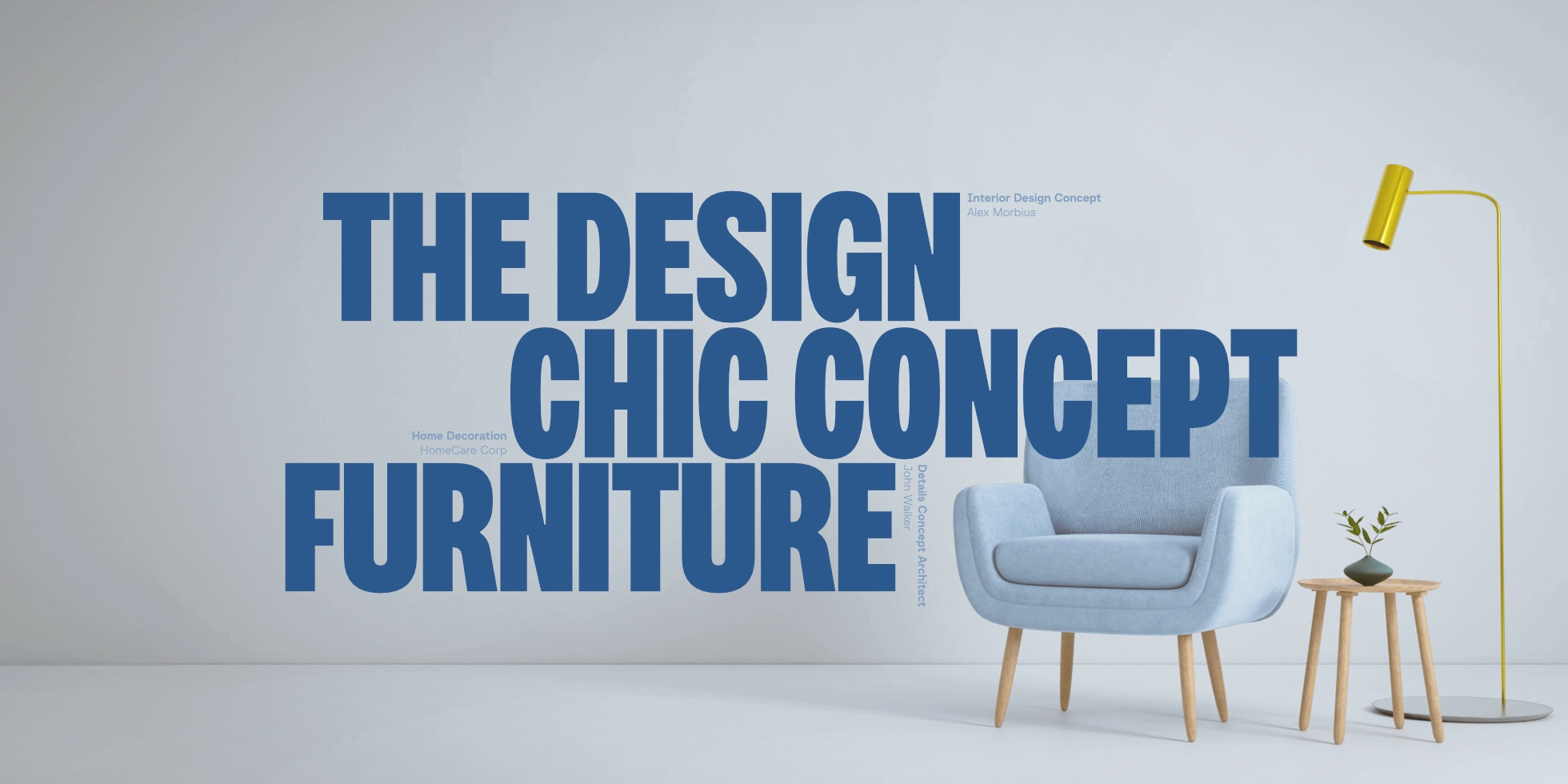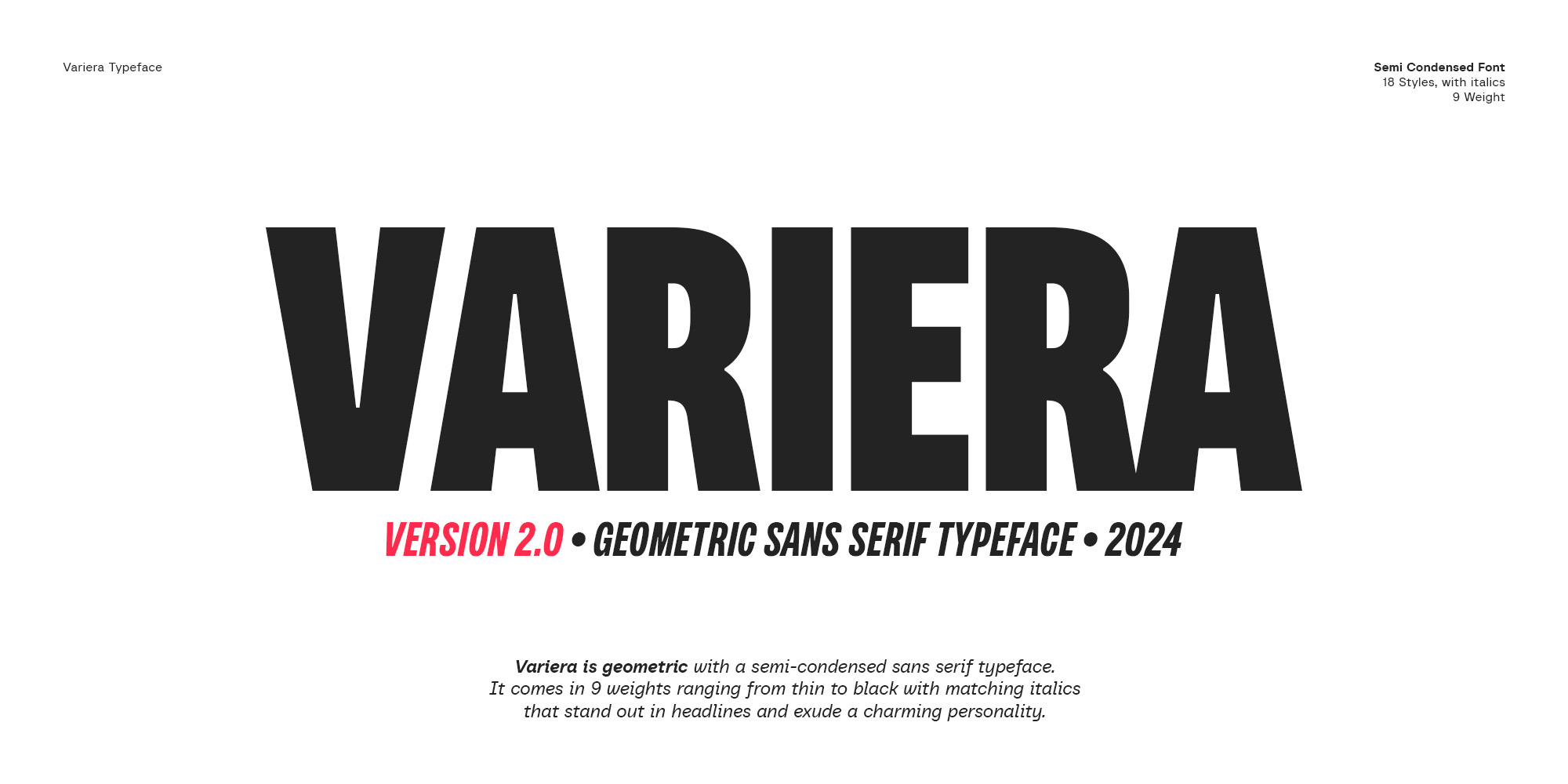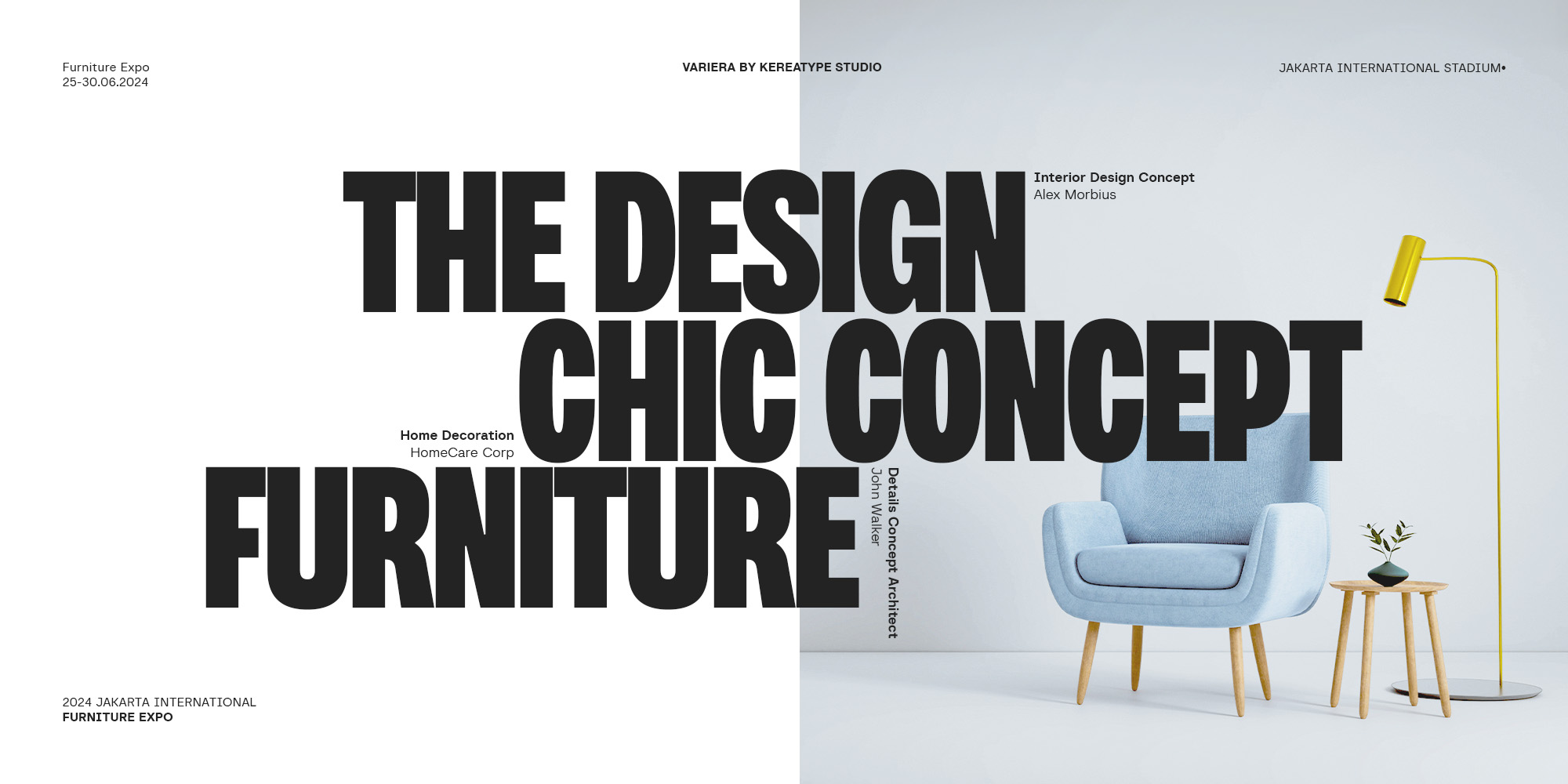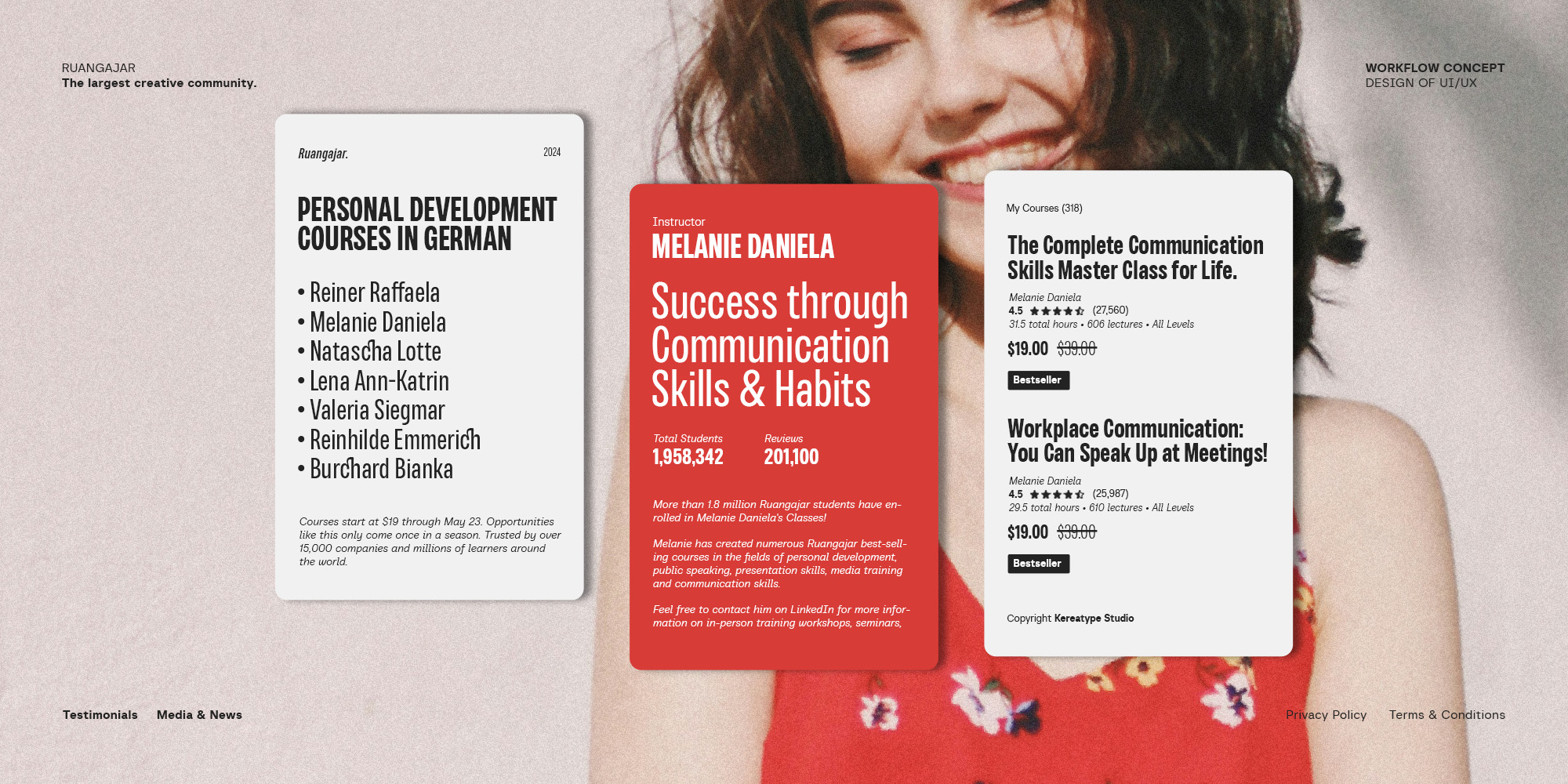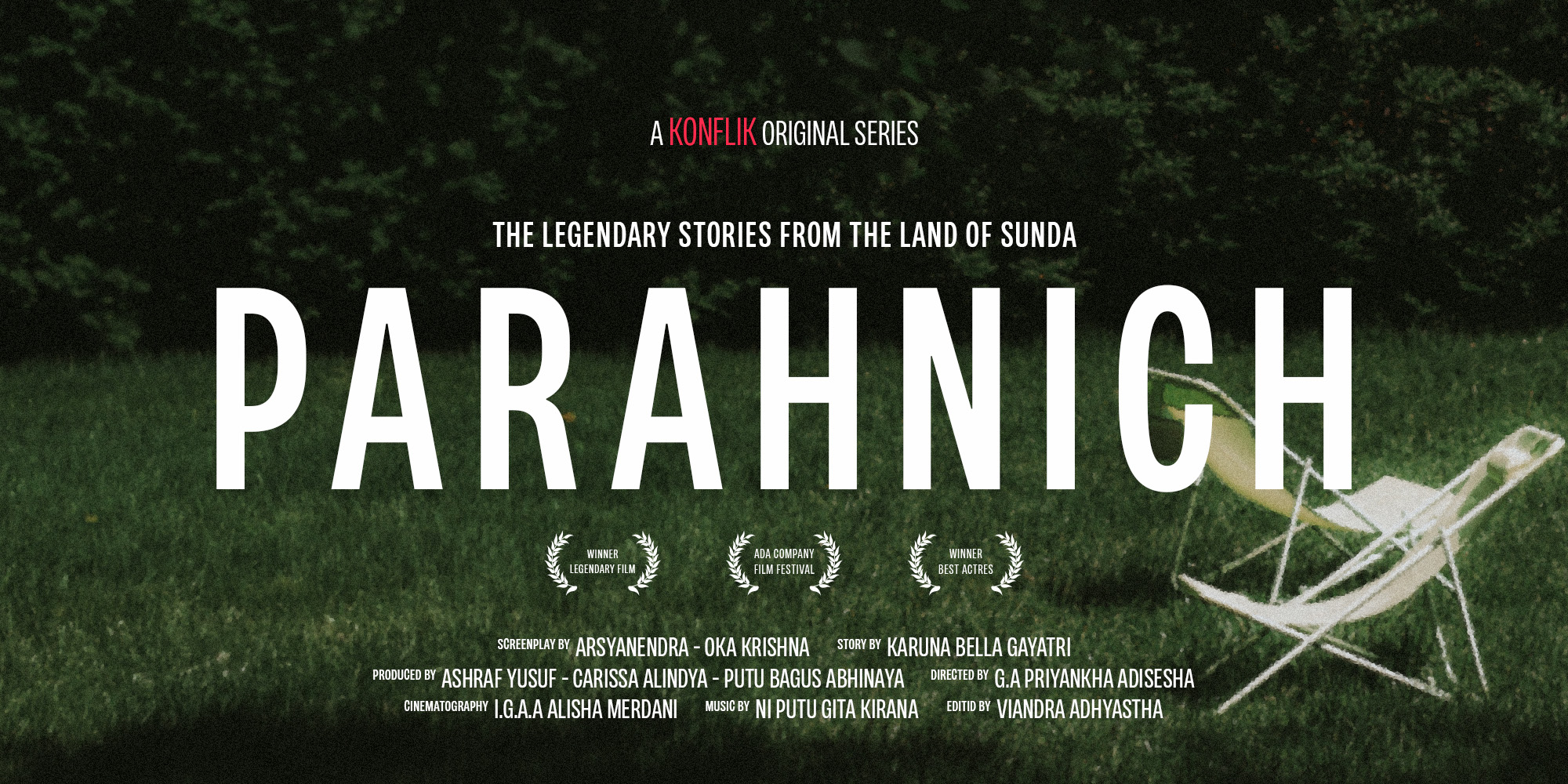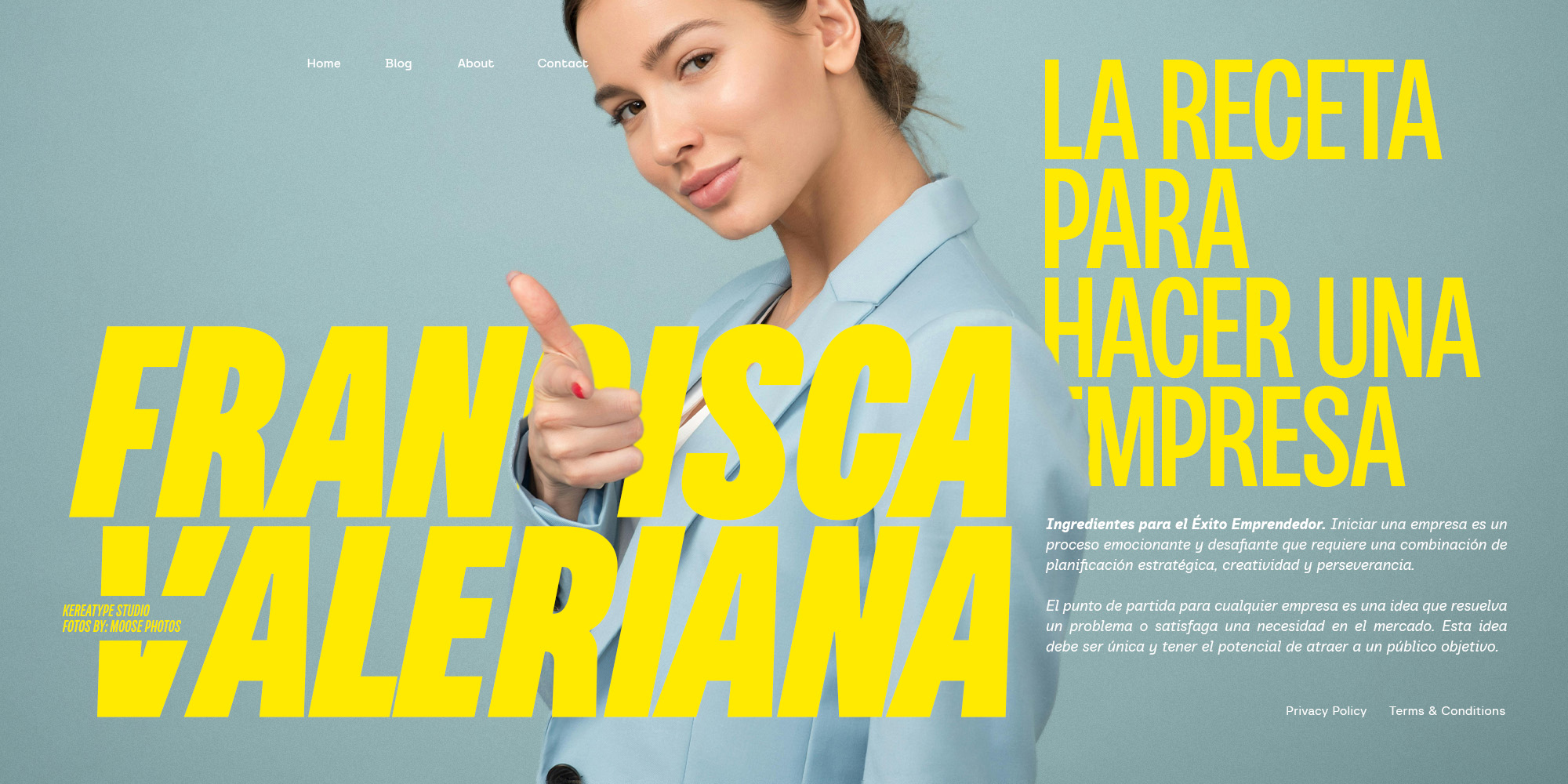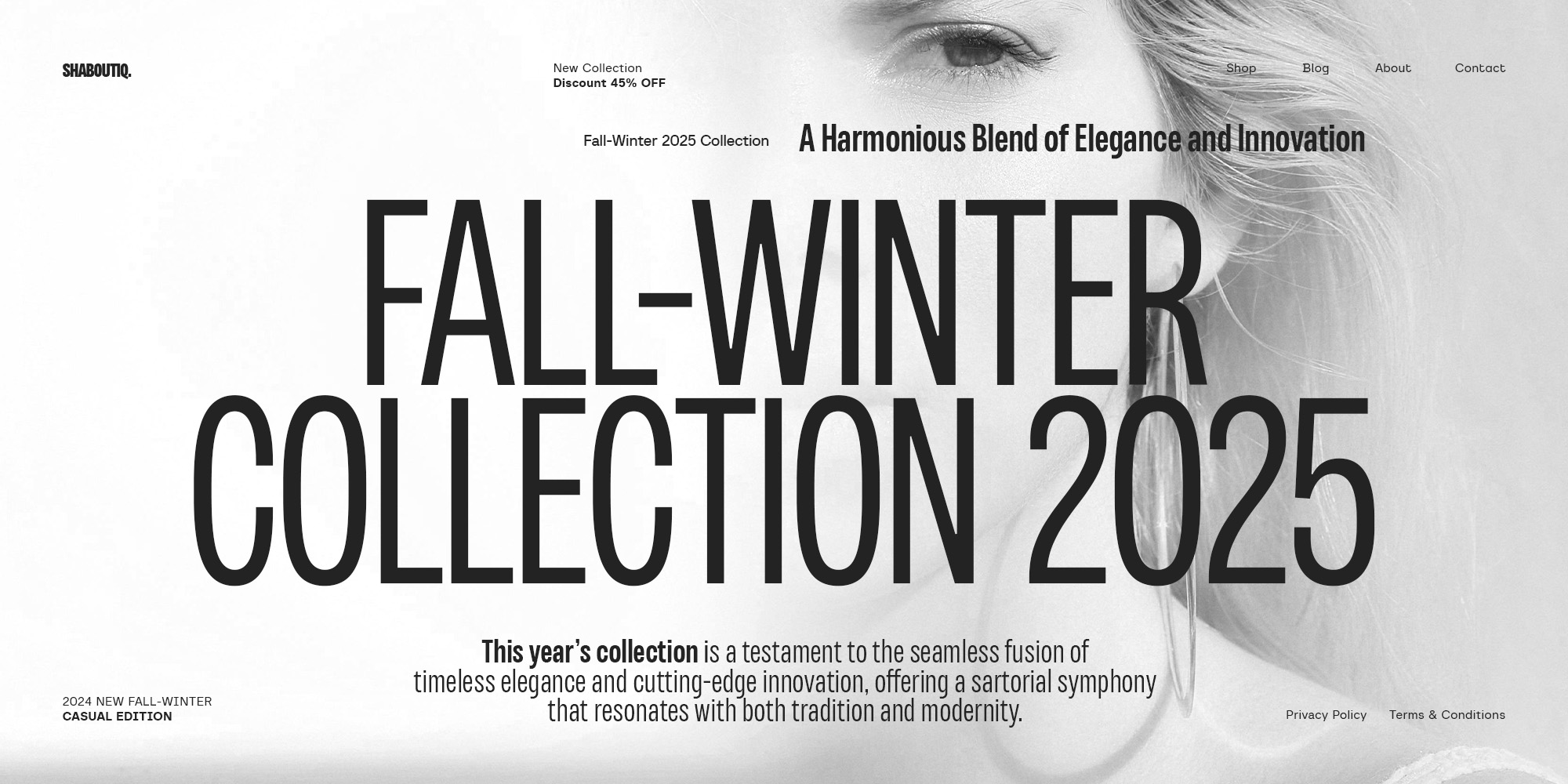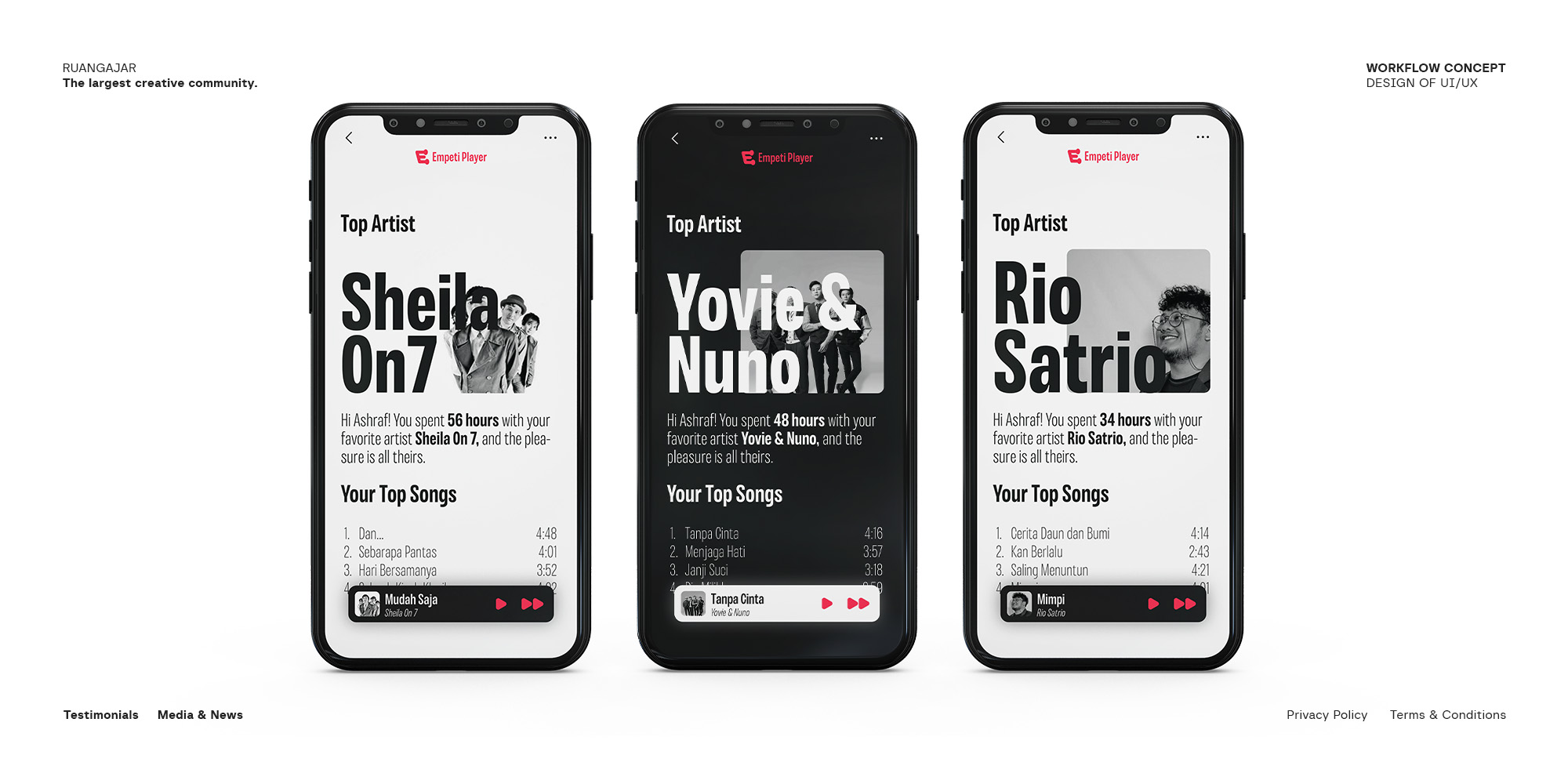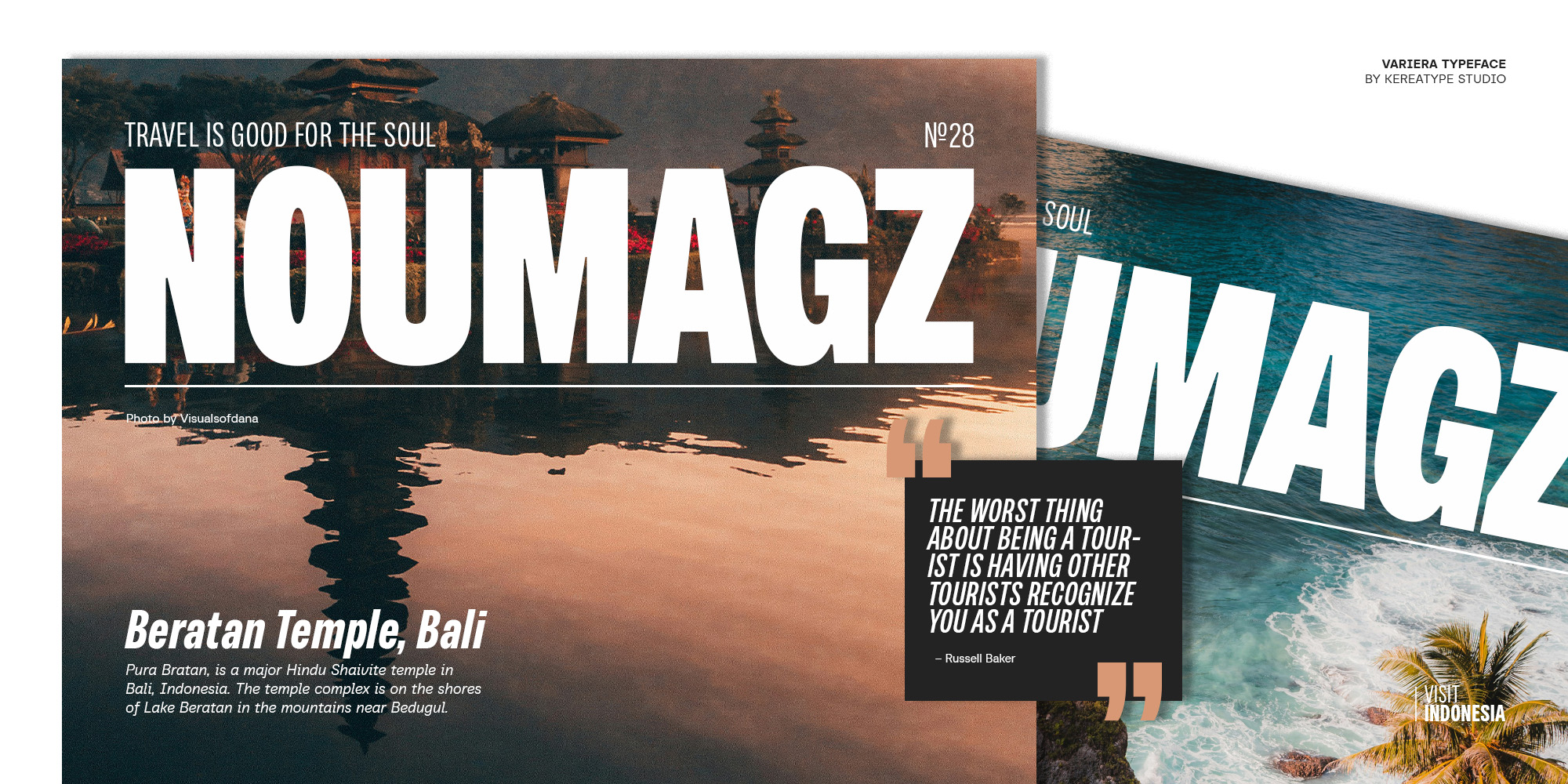
Variera
Clean Modern Geometric Semi-Condensed Sans
Variera is a dynamic, semi-condensed geometric sans serif family that masterfully balances professional utility with a charming, expressive personality. Featuring nine weights from Thin to Black with matching italics, this “flavor in motion” typeface is engineered for high-impact headlines and sleek UI/UX interfaces alike. Its carefully balanced system combines emotional appeal with geometric precision, ensuring exceptional legibility across both digital and print platforms. Whether you are building a modern startup identity or crafting detailed editorial layouts, Variera’s versatile nature delivers a strong, reliable, and timeless voice to every creative project.